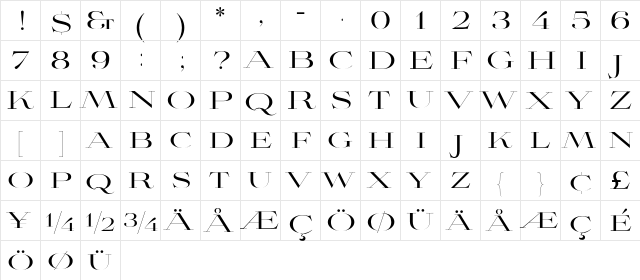
AvianoDidone Regular
| Foundry | by Jeremy Dooley |
Design Context for AvianoDidone Typeface
AvianoDidone offers clean, dependable letterforms without strong stylistic allegiance, making it a practical choice for designers who need flexibility.